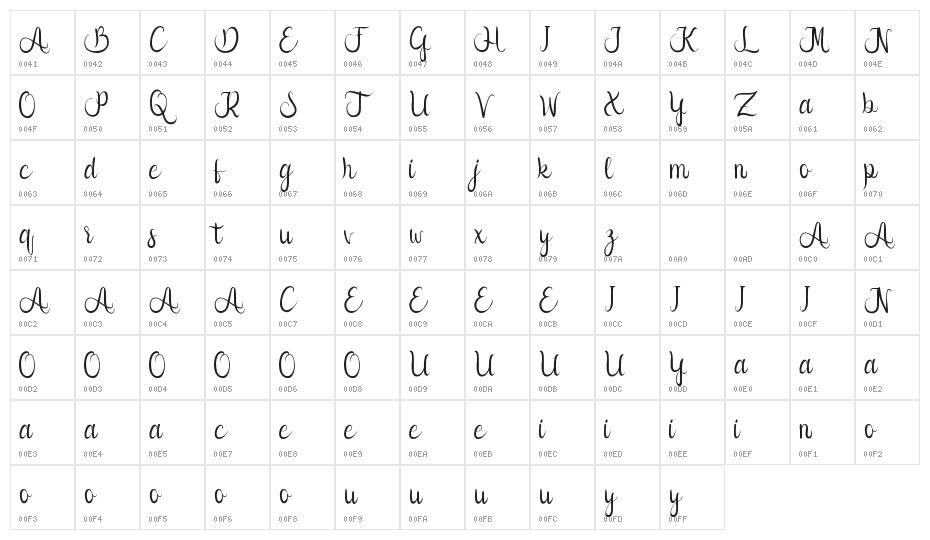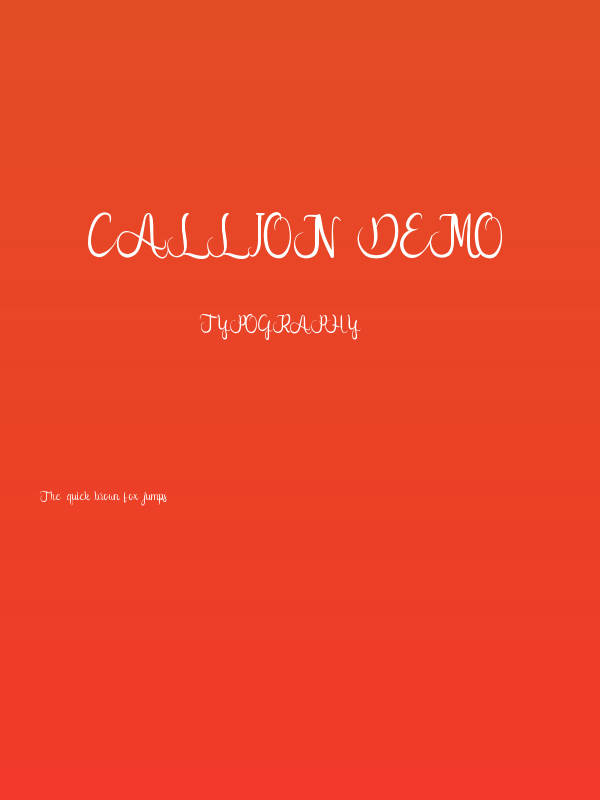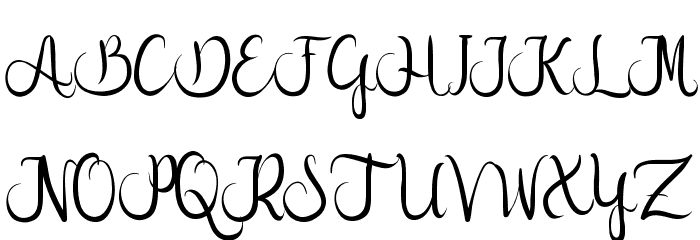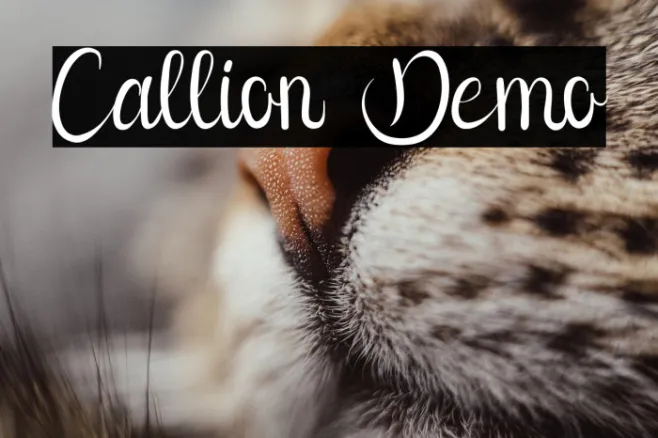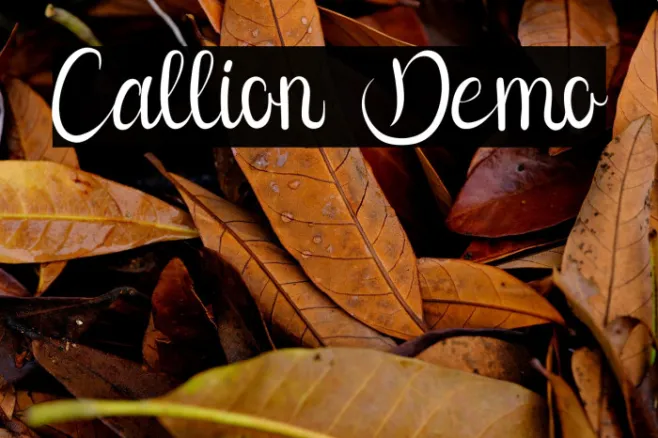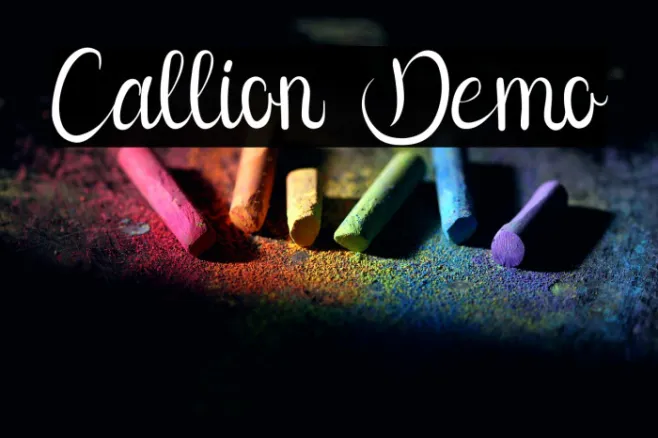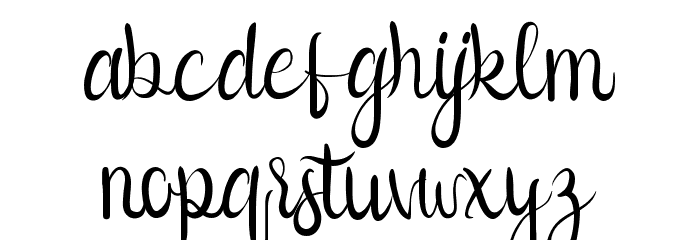
Callion Demo Font
Callion Demo Description
This font features an elegant and flowing script style, characterized by its smooth, cursive letterforms that exude a sense of grace and sophistication. The uppercase letters are particularly ornate, with sweeping curves and loops that add a decorative flair. The lowercase letters maintain a consistent flow, enhancing readability while retaining the font's artistic charm. The overall design is reminiscent of traditional calligraphy, making it suitable for projects that require a touch of elegance and refinement. The font's balanced proportions and consistent stroke width contribute to its harmonious appearance, making it versatile for various design applications.
| Use Case | Headlines, Invitations, Logos |
| Proposed Projects | Ideal for wedding invitations, elegant branding, greeting cards, and decorative headings. |